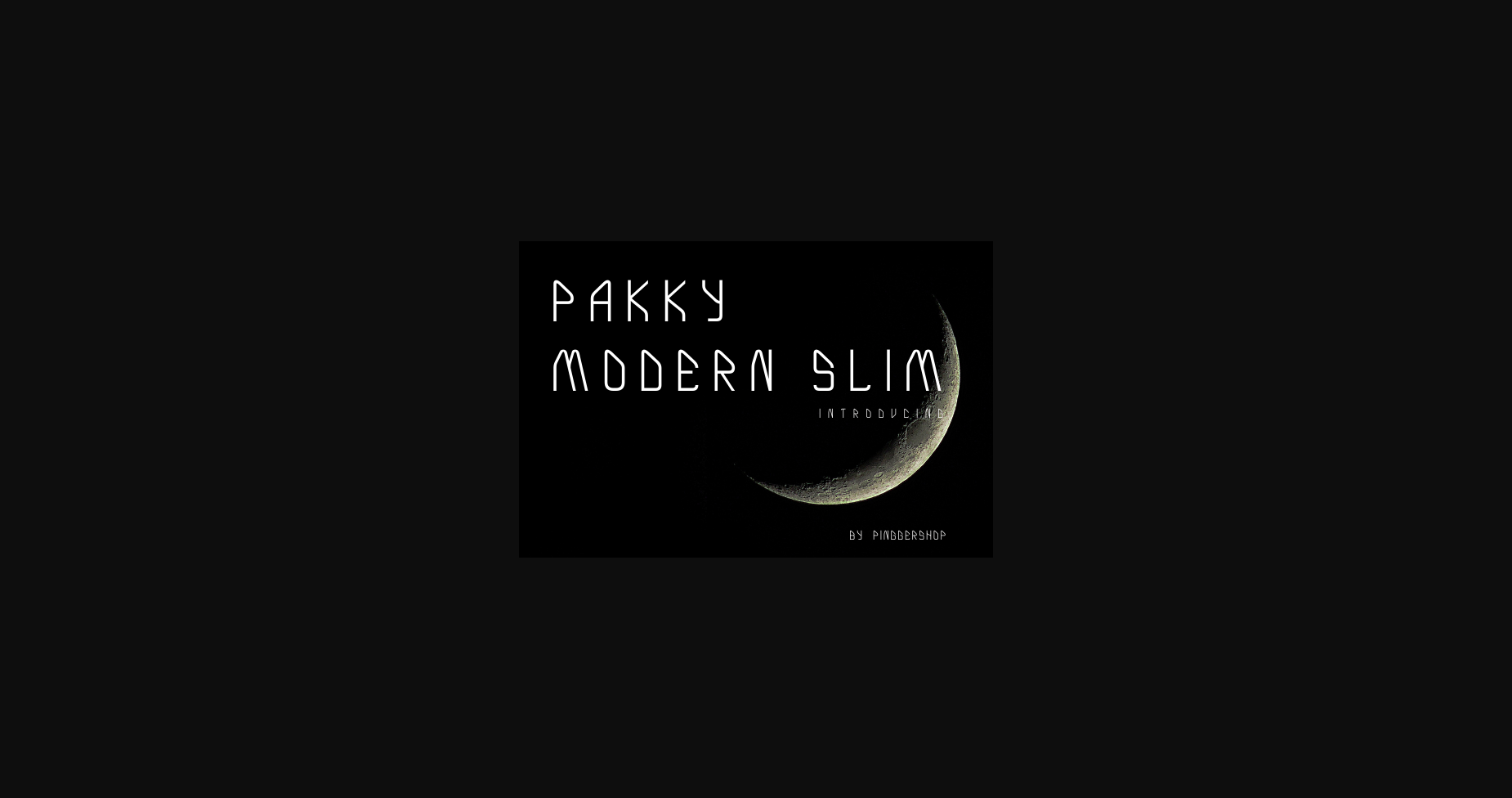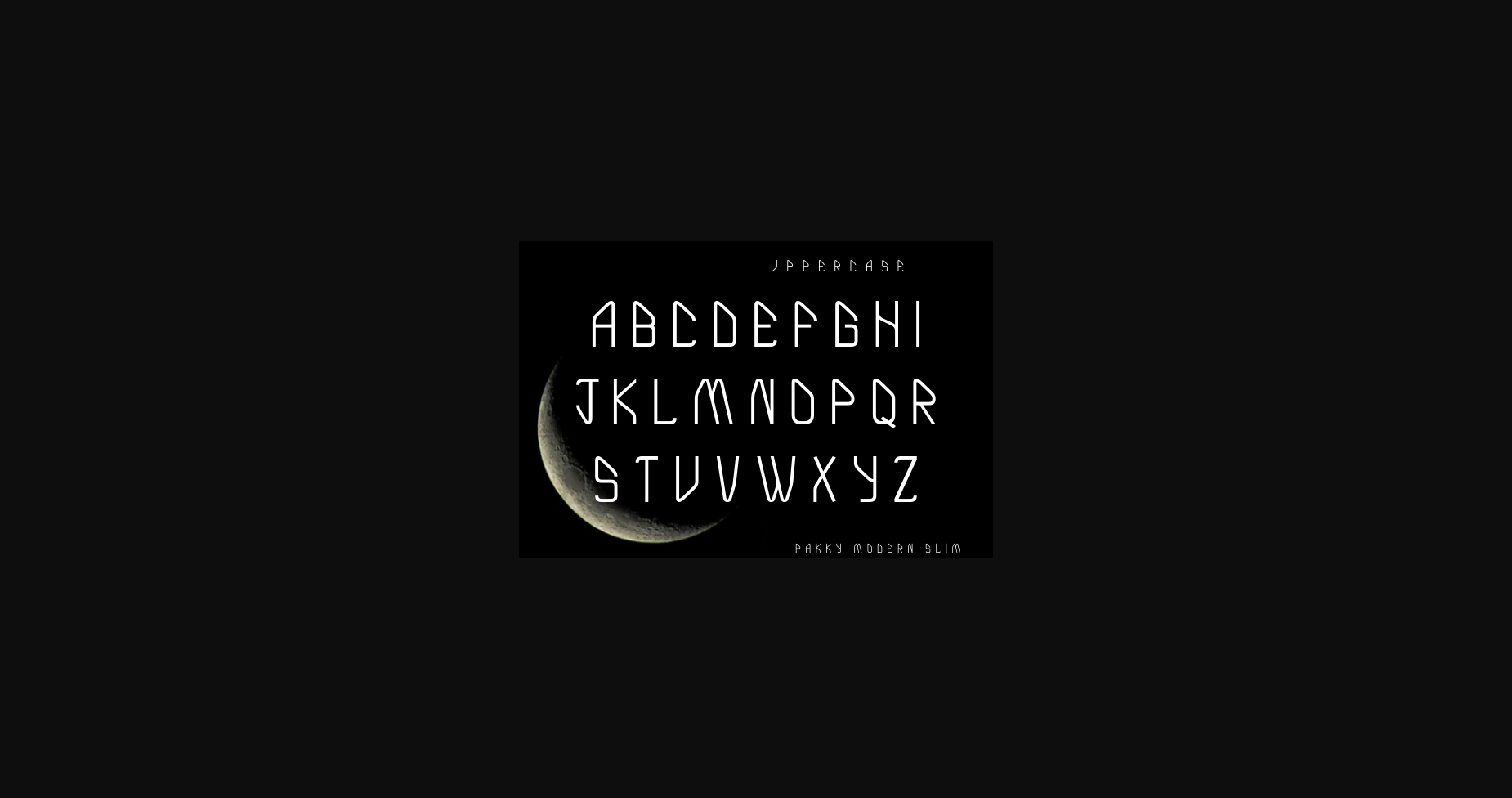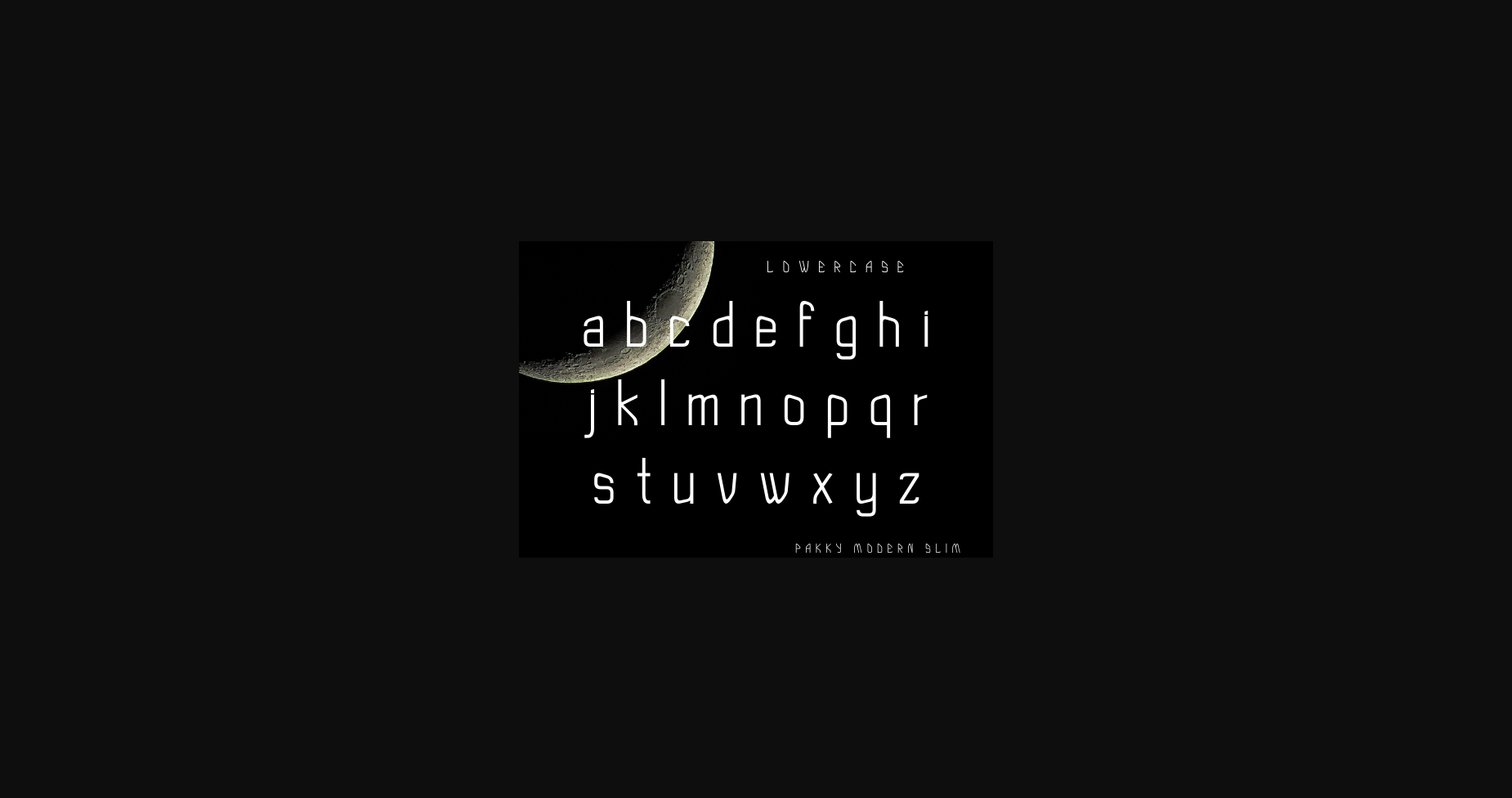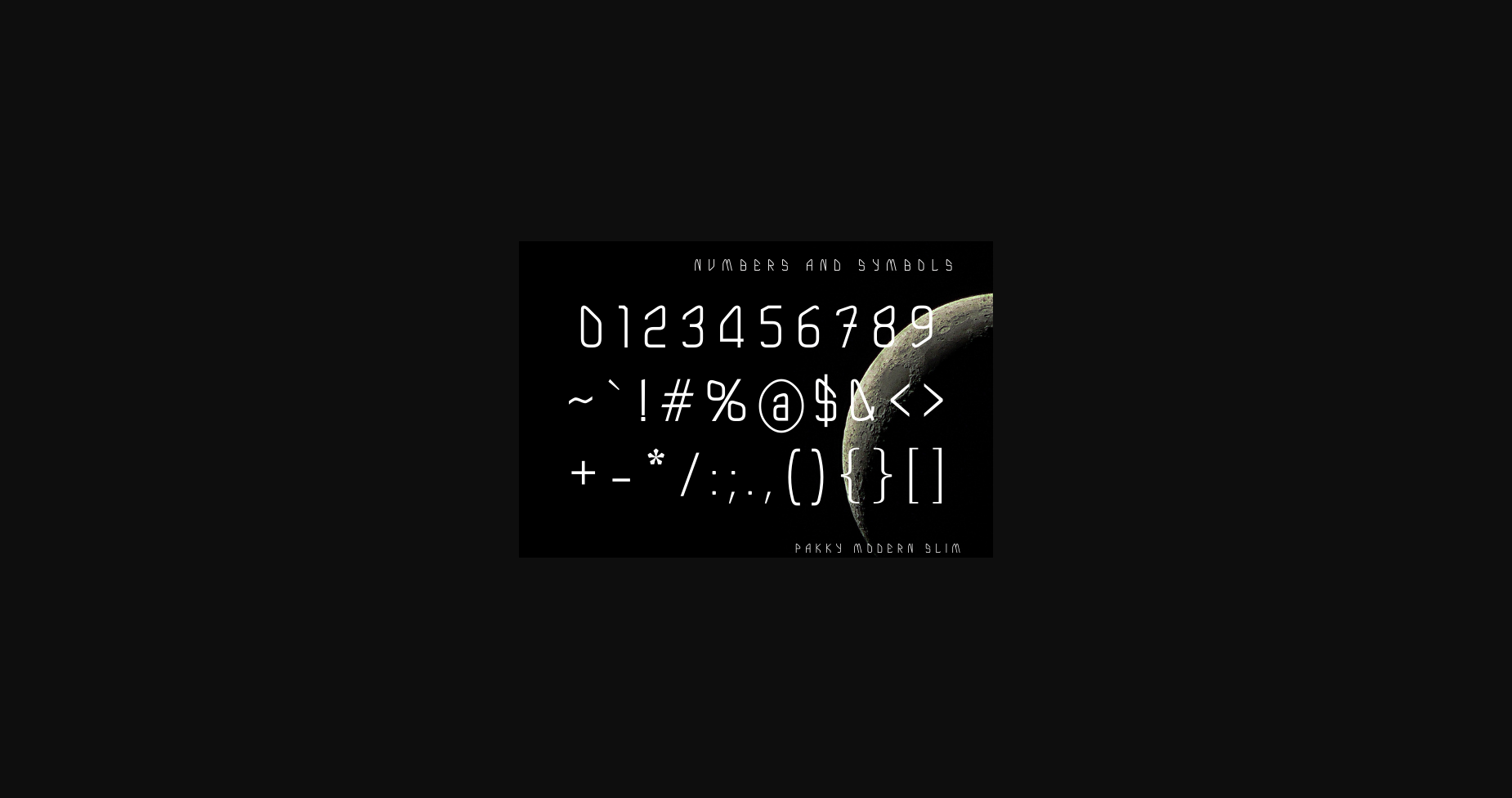
About Pakky Modern Slim Font
Pakky Modern Slim is a fresh, slim, unique, and modern sans serif font.
Whether you’re using it for creative ideas, digital design, presentations, or cards, this quirky font is a wonderful choice!